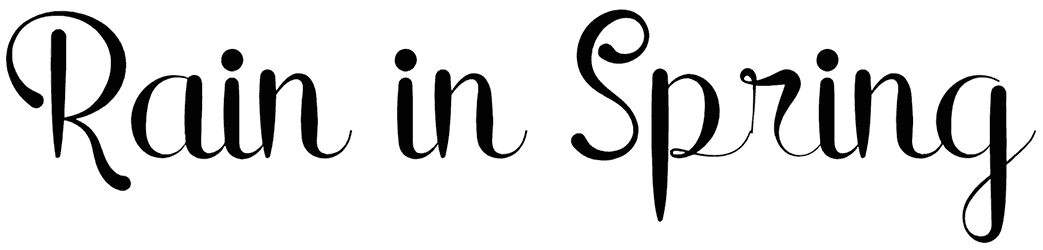
Rain in Spring Font
Like other spring fonts, Rain in Spring is a good option when you want to make something eye-catching for headlines, ancient, wedding-related, or a flyer design. The combination of the vintage look and the casual feel will set your work apart.